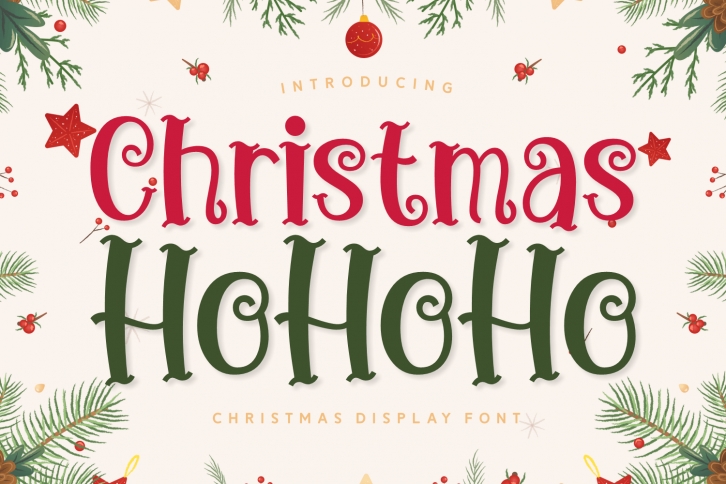
Christmas Ho Ho Ho FONT Download
Christmas Ho Ho Ho Font Download
Christmas Ho Ho Ho is a curly, festive, and charming display font. This font is perfect for wintery-themed designs, especially when combined with warm colors.